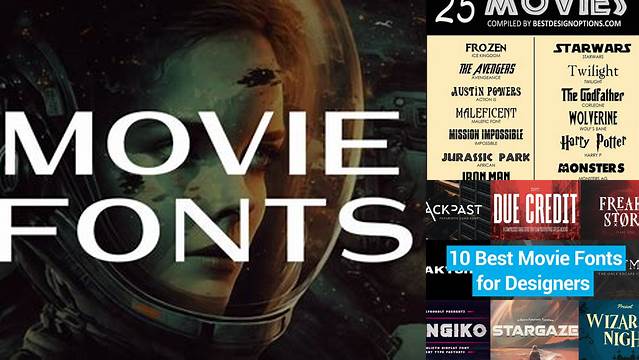
Best Fonts For Action-Packed Movie Titles
Choosing the right font for your action movie title is crucial for setting the tone and grabbing the audience's attention. Think about it, guys, the font is the first visual element that viewers see, and it can make or break the impact of your poster or trailer. Let's dive into the world of action movie fonts and explore what makes a font truly pop on the big screen. We'll cover a variety of styles, from bold and aggressive to sleek and modern, ensuring your movie title screams action! Selecting the correct font that resonates with the spirit and energy of your movie is essential for creating a lasting first impression. It's more than just aesthetics; it's about conveying the essence of your film in a single glance. Imagine a high-octane thriller using a delicate script font—it just wouldn't work, right? The font needs to match the intensity and excitement of the narrative. So, whether you're crafting a blockbuster superhero flick or a gritty crime drama, the perfect font is your silent ambassador, whispering promises of adrenaline-fueled adventure. This is why it’s important to really consider your choices and make sure the lettering you use is exactly what your film needs to capture the attention of the right audience from the get-go. And you’re in luck! That’s what we’ll cover in this article.
H2: Bold Fonts for Action Movie Titles
When you're aiming for an action-packed feel, bold fonts are your best friend. These fonts command attention and exude power, perfect for movies filled with explosions, car chases, and heroic showdowns. Think about fonts that have thick strokes and strong, geometric shapes. These types of fonts really make a statement and ensure your title stands out, even from a distance. Using a bold font is a surefire way to convey strength and intensity, which is exactly what you want for an action film. It's all about making an impact, and bold fonts do just that. Picture a movie poster with a sleek, bold sans-serif font emblazoned across it – it instantly screams excitement and adventure. But it's not just about being thick and heavy; the font also needs to be legible and fit the overall aesthetic of your movie. After all, you want people to be able to read the title easily while still feeling the adrenaline rush. When choosing a bold font, consider the specific sub-genre of your action movie. A font that works for a gritty, urban crime thriller might not be the best choice for a futuristic sci-fi action flick. The key is to find that perfect balance between boldness and readability, ensuring your title not only grabs attention but also communicates the essence of your film. Also, consider the spacing and kerning between letters. A bold font that is too tightly packed can look cluttered and overwhelming, while one that is too spaced out can lose its impact. Pay attention to these details to ensure your bold font is as effective as possible.
H2: Aggressive Fonts for Thrillers
For thrillers, you want fonts that evoke a sense of danger and suspense. Aggressive fonts, often characterized by sharp edges, distorted shapes, or distressed textures, can create a feeling of unease and anticipation. These fonts are perfect for movies that keep audiences on the edge of their seats. Imagine a font that looks like it's been scratched or torn – it instantly conveys a sense of urgency and peril. Aggressive fonts are all about adding that extra layer of intensity to your movie title, making viewers wonder what kind of heart-pounding action they're in for. Think about the font used in the poster for a psychological thriller – it likely has an unsettling quality that hints at the dark themes within the film. When selecting an aggressive font, consider how it interacts with the other elements of your poster or marketing materials. The font should complement the visuals and the overall tone of the movie. You don't want a font that clashes with the imagery or distracts from the message you're trying to convey. Also, think about readability. While aggressive fonts are designed to be eye-catching, they still need to be legible. A font that's too distorted or stylized can be difficult to read, which defeats the purpose of having a title in the first place. The best aggressive fonts are those that strike a balance between visual impact and clarity. They draw the viewer in with their edgy aesthetic while still allowing them to easily read the title. It's a delicate balance, but when you get it right, the result can be incredibly effective. The right lettering choice can be a big part of building anticipation for a thriller movie.
H2: Sleek Fonts for Modern Action Films
Modern action movies often benefit from sleek fonts that convey a sense of sophistication and technological prowess. These fonts are typically sans-serif, with clean lines and a minimalist aesthetic. They're perfect for movies that feature cutting-edge gadgets, high-tech weaponry, or futuristic settings. Think about fonts that look like they belong on a computer screen or a high-end sports car – they instantly give your title a contemporary feel. Sleek fonts are all about conveying a sense of speed, precision, and innovation, which is exactly what you want for a modern action film. They make a statement of sophistication. When choosing a sleek font, consider the overall visual style of your movie. If your film has a polished, high-tech look, a sleek font will fit right in. But if your movie has a grittier, more realistic aesthetic, a sleek font might feel out of place. It's important to choose a font that complements the visuals and the story. Also, think about the spacing and kerning of the font. Sleek fonts often look best when they're well-spaced, allowing each letter to stand out and breathe. This can enhance the font's readability and create a more elegant overall effect. The best sleek fonts are those that are both visually striking and easy to read. They convey a sense of modernity and sophistication while still ensuring your title is clear and impactful. It's a delicate balance, but when you nail it, the result can be a title that looks both cutting-edge and timeless. After all, modern action films need to look the part, too.
H2: Impactful Fonts for Blockbusters
For blockbuster action movies, you need fonts that have a real impact. These fonts should be bold, attention-grabbing, and instantly recognizable. They need to be able to stand out on a crowded movie poster and grab the viewer's attention. Think about the fonts used in the titles of major superhero movies or action franchises – they're often big, bold, and impossible to miss. Impactful fonts are all about making a statement and conveying the scale and excitement of a blockbuster film. They are used to tell a visual story. When choosing an impactful font, consider the overall tone of your movie. Is it a fun, action-packed adventure, or a more serious, dramatic thriller? The font should reflect the mood and style of the film. Also, think about the target audience. Are you trying to appeal to a broad audience, or a more niche group of action fans? The font you choose can influence how your movie is perceived. A bold, impactful font can signal that your movie is a major event, while a more subtle font might suggest a more thoughtful, character-driven story. The best impactful fonts are those that are both visually striking and appropriate for the movie's tone and target audience. They grab attention and convey the excitement and scale of a blockbuster film, ensuring your title makes a lasting impression. It's about creating that visual punch that gets people hyped for your movie.
H2: Retro Fonts for Action Movies
Retro action movies often benefit from fonts that evoke a sense of nostalgia and classic action cinema. These fonts can range from bold and blocky to sleek and futuristic, depending on the specific era you're trying to emulate. Think about fonts that look like they belong on a vintage movie poster or a classic arcade game – they instantly transport viewers back in time. Retro fonts are all about capturing the spirit of a bygone era and adding a touch of old-school cool to your movie title. When choosing a retro font, consider the specific period your movie is set in or inspired by. A font that works for a 1970s-style action flick might not be the best choice for a 1980s-themed movie. It's important to choose a font that's authentic to the era. Also, think about the overall aesthetic of your movie. Is it a gritty, realistic action film, or a more stylized, over-the-top adventure? The font should complement the visuals and the story. The best retro fonts are those that capture the essence of a specific era while still being legible and impactful. They add a touch of nostalgia and classic cool to your movie title, making it stand out and grab attention. They allow the viewers to have a sense of the film’s style even before they see it.
H2: Futuristic Fonts for Sci-Fi Action Films
Sci-fi action movies demand fonts that look like they're from another world. Futuristic fonts often feature clean lines, geometric shapes, and a high-tech aesthetic. They're perfect for movies set in space, on distant planets, or in dystopian futures. Think about fonts that look like they belong on a spaceship control panel or a holographic display – they instantly convey a sense of innovation and technological advancement. Futuristic fonts are all about creating a sense of wonder and excitement, hinting at the possibilities of the future. The right choice can make all the difference. When choosing a futuristic font, consider the specific tone and style of your movie. Is it a dark, gritty sci-fi thriller, or a more optimistic, adventure-filled space opera? The font should reflect the mood of the film. Also, think about the technology featured in your movie. A font that looks sleek and modern might be perfect for a movie about artificial intelligence, while a more angular, geometric font might be better suited for a film about space exploration. The best futuristic fonts are those that are both visually striking and appropriate for the movie's tone and setting. They create a sense of wonder and excitement, immersing viewers in the world of your film from the moment they see the title. When people see the movie’s title, the tone of the movie should immediately set in.
H2: Handwritten Fonts for Action Comedy
For action comedies, a handwritten font can add a touch of whimsy and personality. These fonts can range from casual and playful to bold and energetic, depending on the specific tone of your movie. Think about fonts that look like they've been scrawled on a chalkboard or spray-painted on a wall – they instantly convey a sense of fun and spontaneity. Handwritten fonts are all about adding a human touch to your movie title, making it feel more relatable and approachable. They are a great choice for movies that want to balance action and humor. When choosing a handwritten font, consider the overall style of your movie. Is it a lighthearted, family-friendly action comedy, or a more edgy, adult-oriented film? The font should reflect the tone and target audience. Also, think about readability. Handwritten fonts can sometimes be difficult to read, so it's important to choose one that's clear and legible. The best handwritten fonts are those that strike a balance between personality and readability. They add a touch of fun and spontaneity to your movie title while still ensuring it's easy to read and understand. They show off the comedy aspect of your movie.
H2: Serif Fonts in Action Movie Titles
While sans-serif fonts are often the go-to choice for action movies, serif fonts can also be effective, especially when you want to convey a sense of classic style or historical drama. Serif fonts have small decorative strokes at the ends of the letters, which can give them a more formal and traditional look. Think about fonts that look like they belong in a classic novel or a historical document – they instantly add a touch of elegance and authority. When using serif fonts in action movie titles, it's important to choose a font that's bold and impactful enough to stand out. A delicate, ornate serif font might not be the best choice for a high-octane action film. Instead, look for serif fonts with strong, clean lines and a commanding presence. These fonts can convey a sense of power and sophistication, making your movie title stand out from the crowd. Consider the tone and setting of your movie when choosing a serif font. A historical action drama might benefit from a classic serif font, while a modern action thriller might be better suited to a sans-serif font. The key is to choose a font that complements the overall style of the film and enhances the message you're trying to convey. However, make sure the font style fits the overall feel of the film.
H2: Sans-Serif Fonts in Action Movies
Sans-serif fonts are a popular choice for action movies due to their clean, modern, and impactful appearance. These fonts lack the small decorative strokes found in serif fonts, giving them a more streamlined and contemporary look. Sans-serif fonts are versatile and can be used in a variety of action movie genres, from futuristic sci-fi to gritty crime thrillers. When choosing a sans-serif font for your action movie title, consider the overall tone and style of the film. A bold, geometric sans-serif font can convey a sense of power and intensity, while a lighter, more minimalist sans-serif font can suggest a sleek and sophisticated aesthetic. Think about the target audience for your movie and choose a sans-serif font that will resonate with them. For example, a younger audience might be drawn to a more modern and edgy sans-serif font, while an older audience might prefer a more classic and legible option. It's important to strike a balance between visual appeal and readability when selecting a sans-serif font. A font that's too stylized or unconventional might be difficult to read, which defeats the purpose of having a title in the first place. The best sans-serif fonts are those that are both eye-catching and easy to read, ensuring your title makes a lasting impression. The right font creates a lasting impression.
Choosing the right font is a critical step in creating a memorable and effective action movie title. Whether you opt for a bold and aggressive style, a sleek and modern look, or a retro-inspired design, the font you choose can significantly impact how your movie is perceived. Remember to consider the tone, style, and target audience of your film when making your selection, and don't be afraid to experiment with different options to find the perfect fit. So, guys, go out there and create some awesome action movie titles!